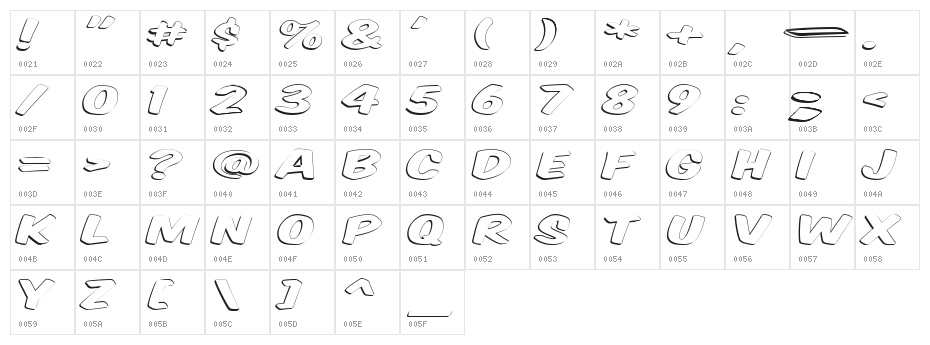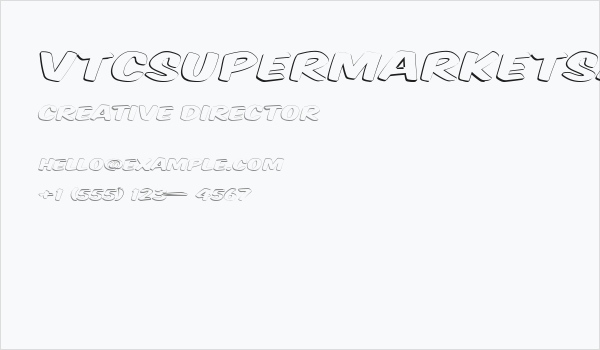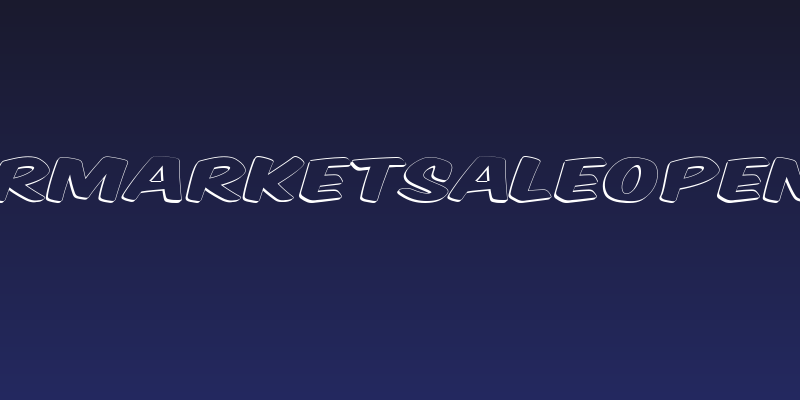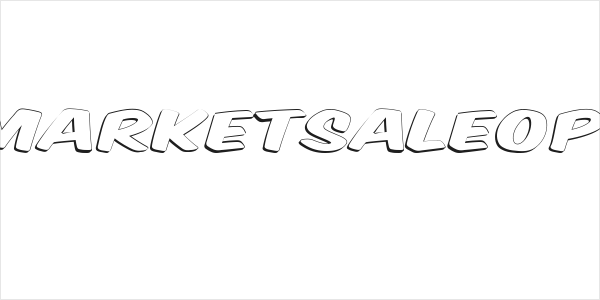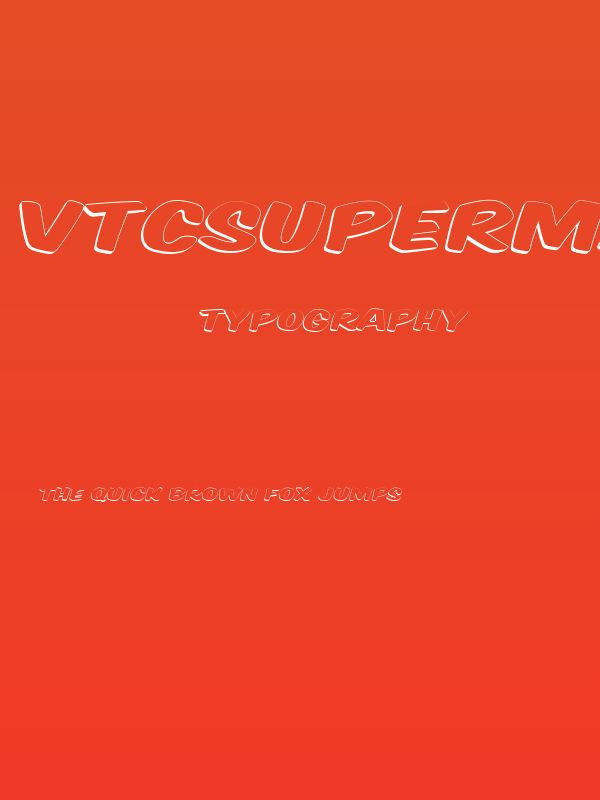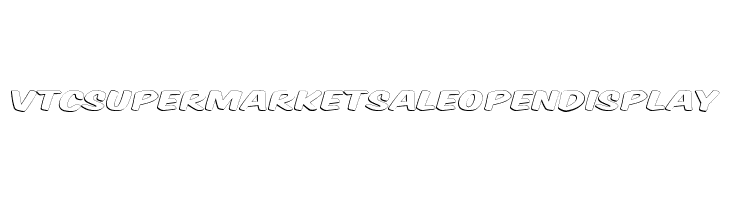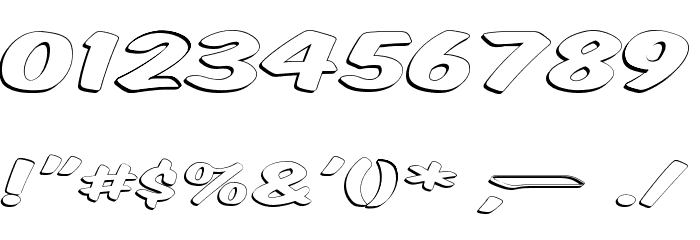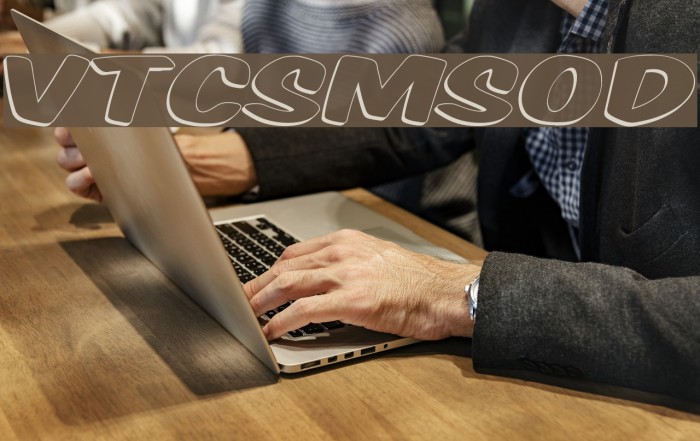
VTCSuperMarketSaleOpenDisplay Font
VTCSuperMarketSaleOpenDisplay Description
This font features a bold, playful style with a three-dimensional effect that gives each character a sense of depth and movement. The letters are uppercase and lowercase, with a slightly italicized slant, adding to the dynamic appearance. The numbers and special characters maintain the same bold and dimensional quality, ensuring consistency across all glyphs. The font's thick strokes and outlined design make it highly visible and attention-grabbing, suitable for eye-catching displays.
| Proposed Projects | Ideal for use in advertising, posters, and signage where a bold and playful impact is desired. |